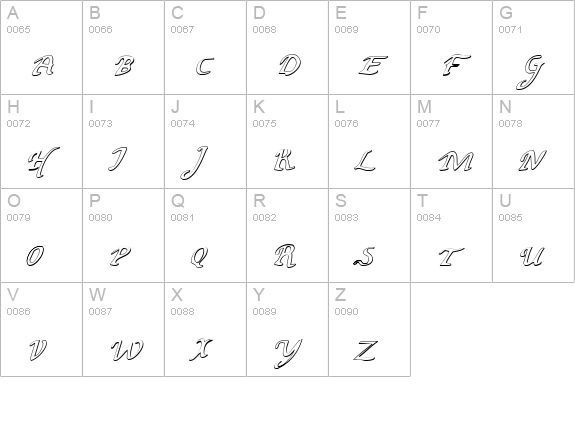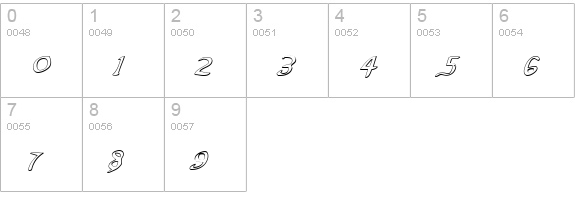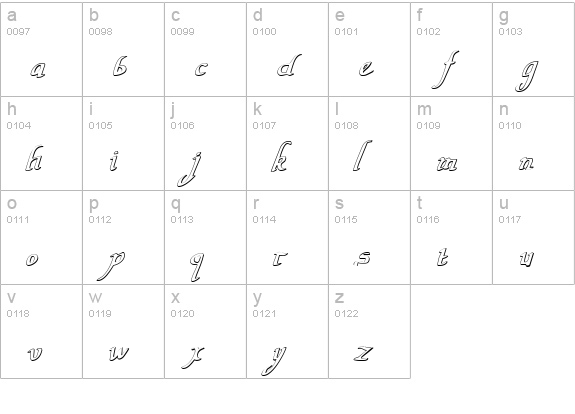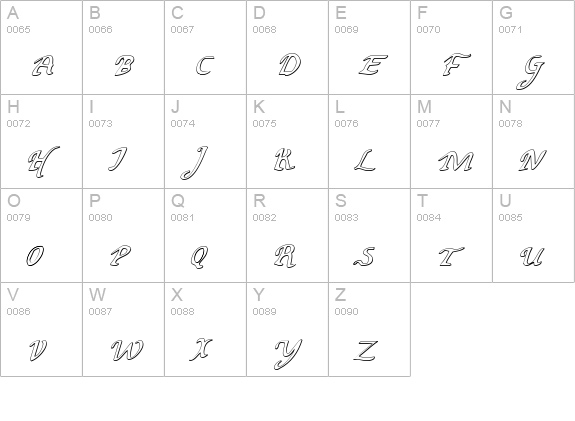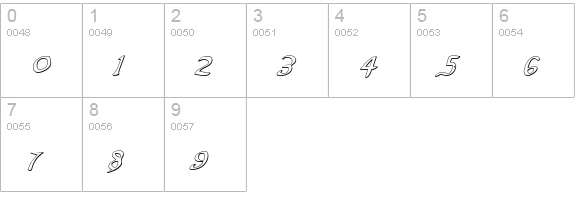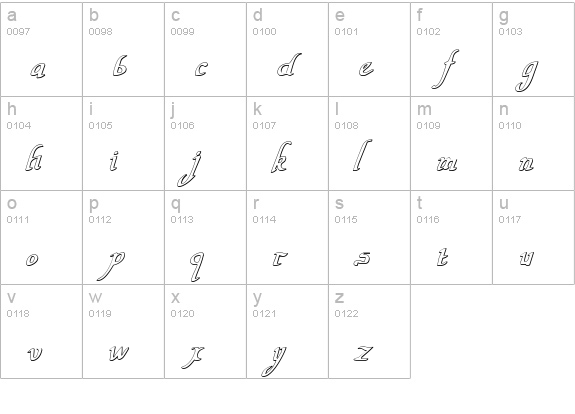
Valley Forge Outline Italic is a distinctive, italic variant in the Valley typeface family \xE2\x80\x94 well suited to design and typography projects.
Valley Forge Outline Italic font is a stunning and elegant typeface that exudes sophistication and creativity. With its unique outlining design, this font is perfect for adding a touch of modernity to any project. The italic styling adds a sense of movement and flair to the text, making it ideal for headings, quotes, or any other text that needs to stand out. This font is versatile and can be used for a variety of design projects, from branding and advertising to social media graphics and more. Its sleek and stylish appearance is sure to catch the eye and leave a lasting impression on viewers. The best part is that Valley Forge Outline Italic font is completely free to download at FontsMarket.com. So go ahead and add this beautiful typeface to your font collection today and start creating stunning designs with ease.